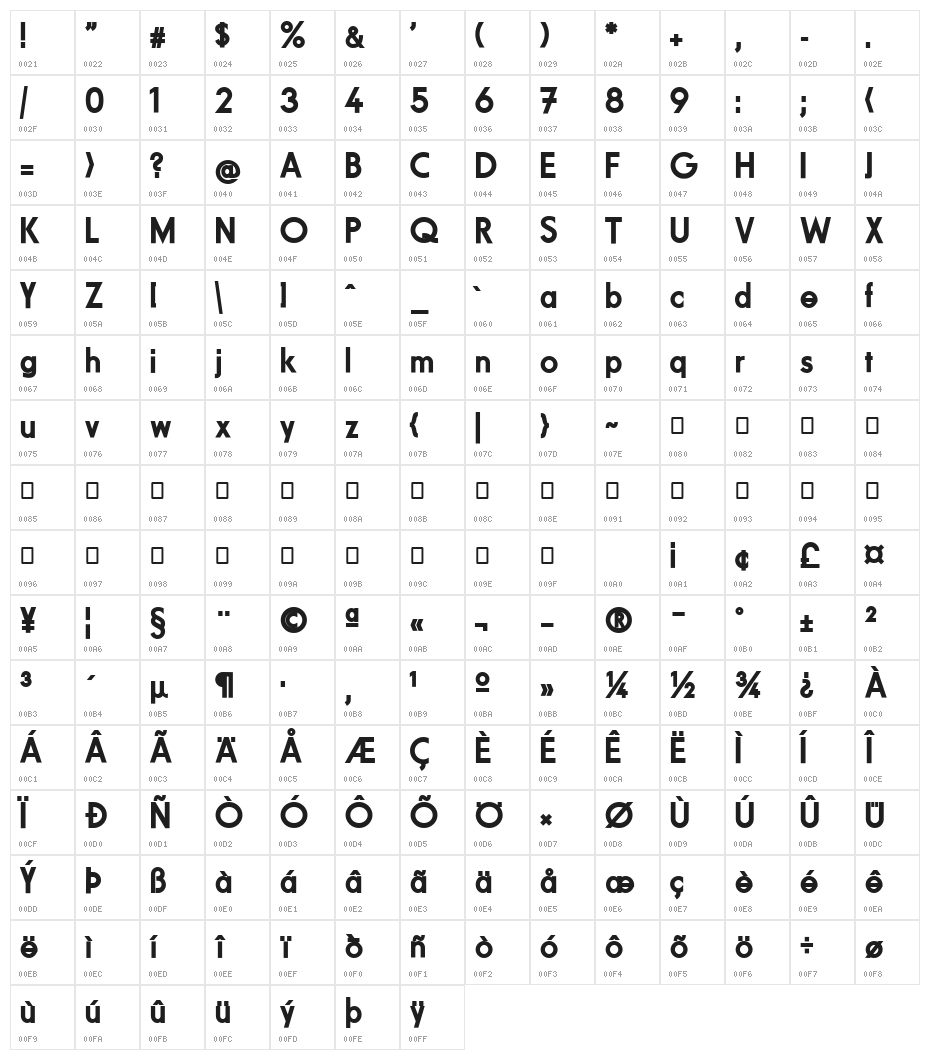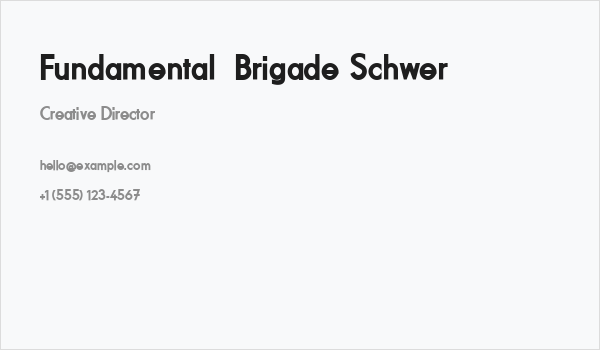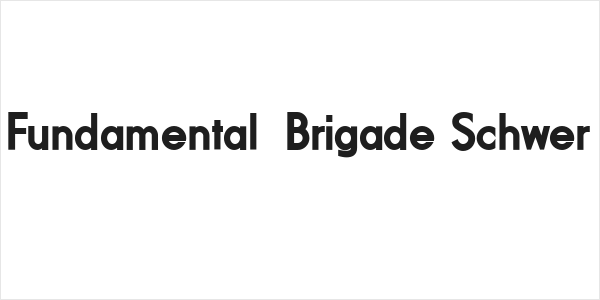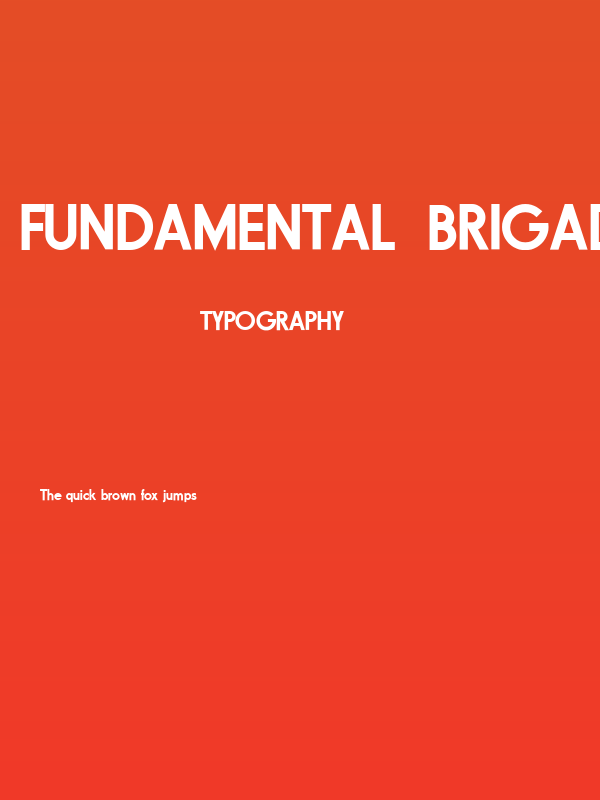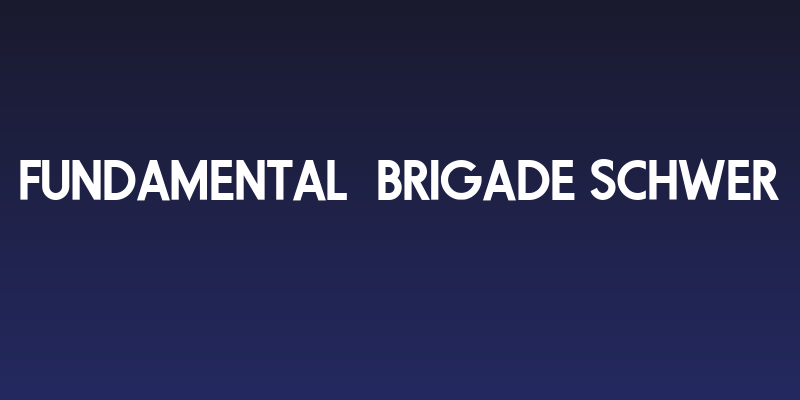
Fundamental Brigade Schwer Font
Fundamental Brigade Schwer Description
This font exhibits a bold and modern sans-serif style, characterized by clean, geometric lines and a strong presence. The uppercase letters are uniform in height, with a consistent stroke width that conveys a sense of stability and strength. The lowercase letters maintain a similar geometric structure, ensuring readability and a cohesive look. The numerals are clear and distinct, matching the overall boldness of the alphabet. Special characters are well-integrated, maintaining the font's modern aesthetic. This font is versatile, suitable for a variety of design applications where clarity and impact are essential.
| Proposed Projects | Ideal for branding, advertising, headlines, and digital media where a modern and impactful look is desired. |